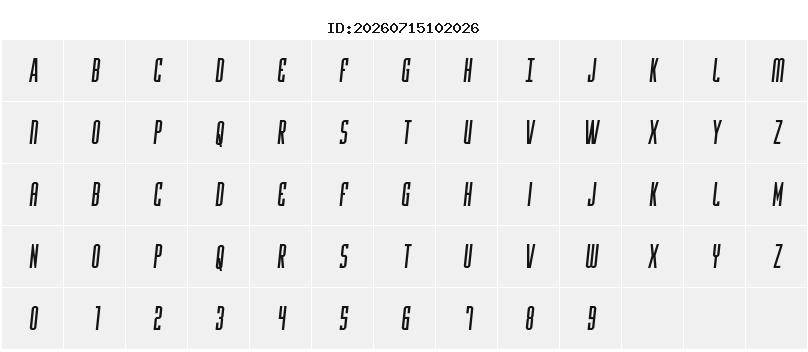
Y-Files Semi-Italic Preview
• Font Name: Y-Files Semi-Italic
• Font Style: Semi-Italic
• Full Font Name: Y-Files Semi-Italic
About Y-Files Semi-Italic.ttf
Y-Files Semi-Italic.ttf is a modern, elegant sans-serif font designed for ultimate readability and visual harmony. Perfect for branding, headlines, web design, and print materials.